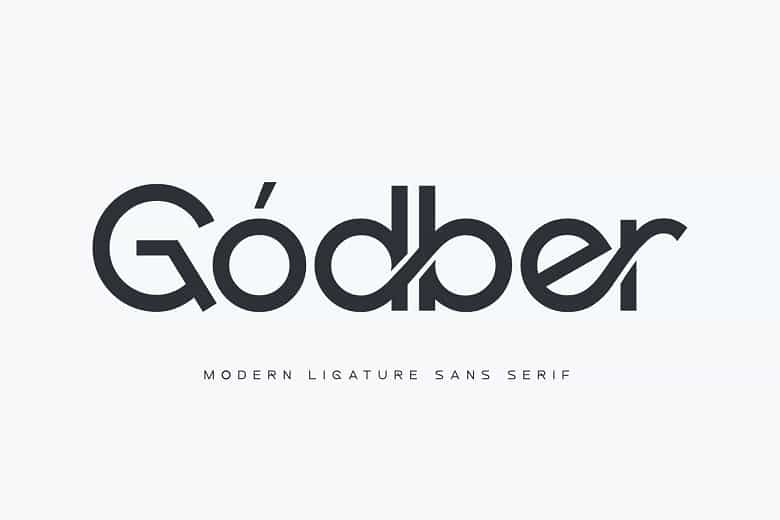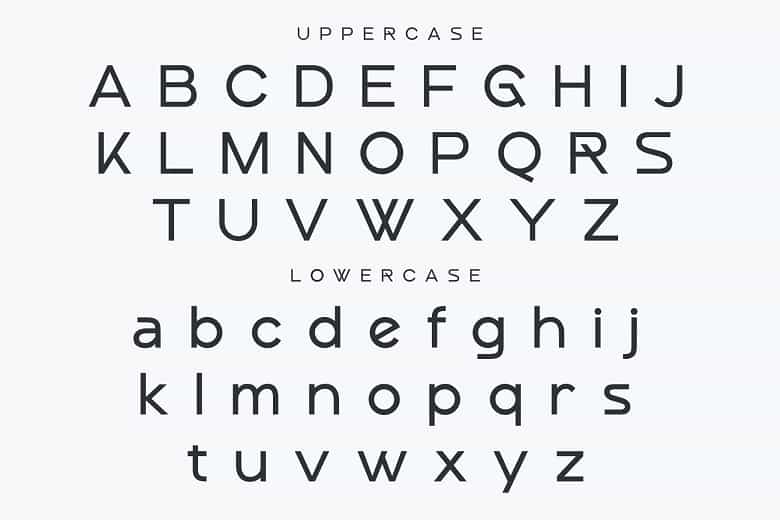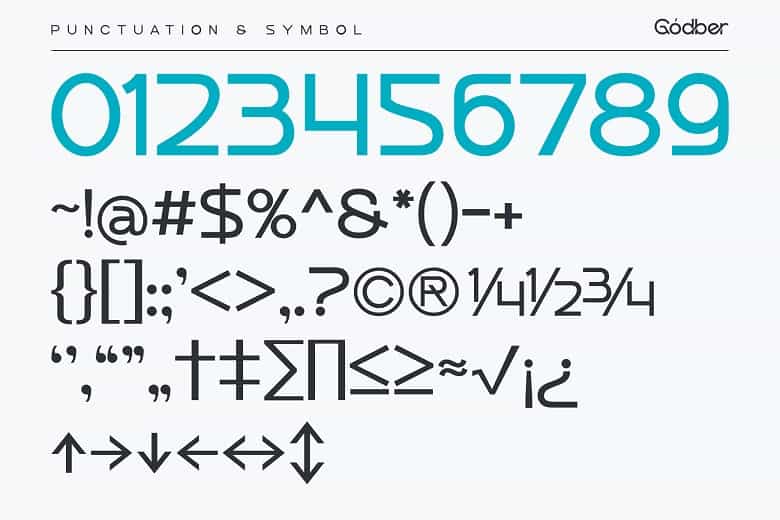
Godber is a new modern ligature sans serif font that will help to give a new sense of your brand. For creating today’s experiencing and catchy logos, Godber offers clear geometric shapes and lively effects so that your brand would be noticed.